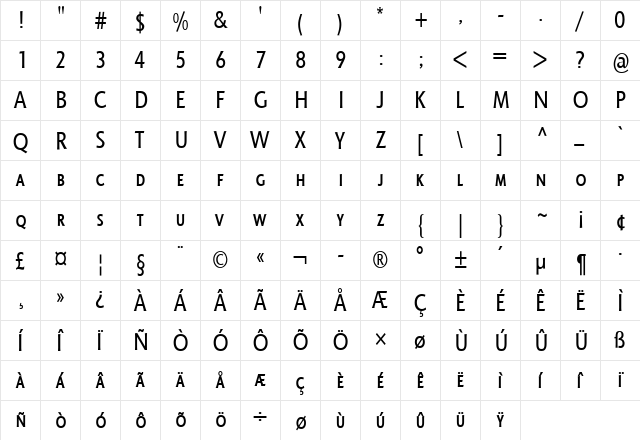
OctoneBETA Regular
Design Context for OctoneBETA Typeface
OctoneBETA is a composed and adaptable typeface that performs quietly and consistently across a wide range of design contexts.